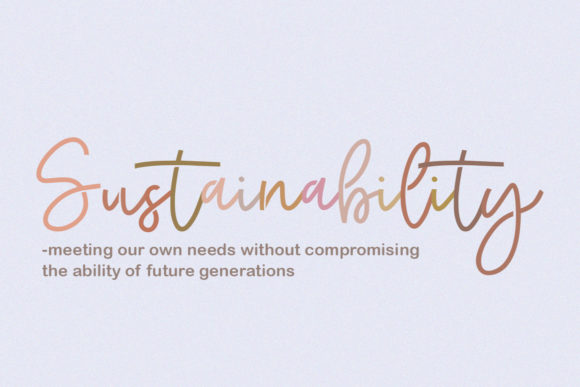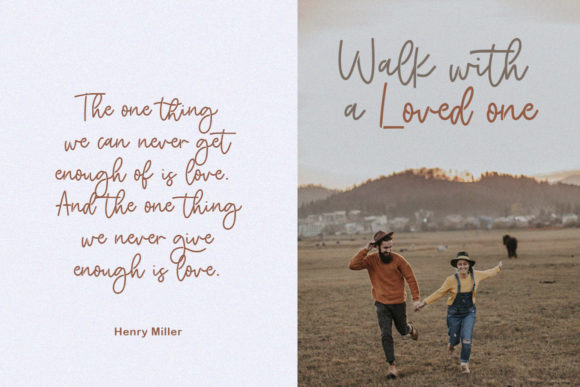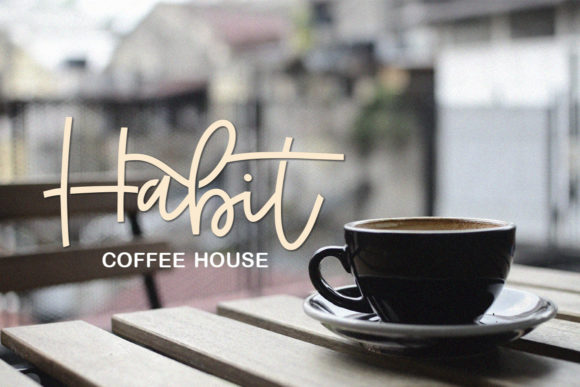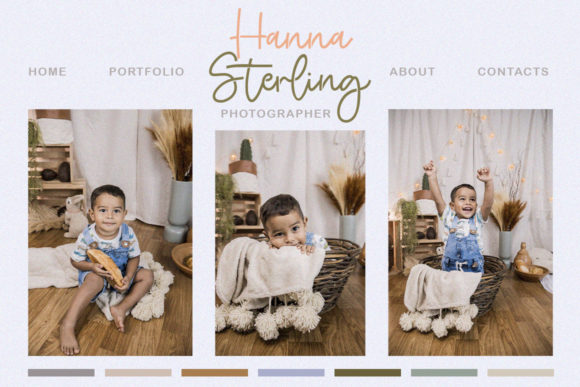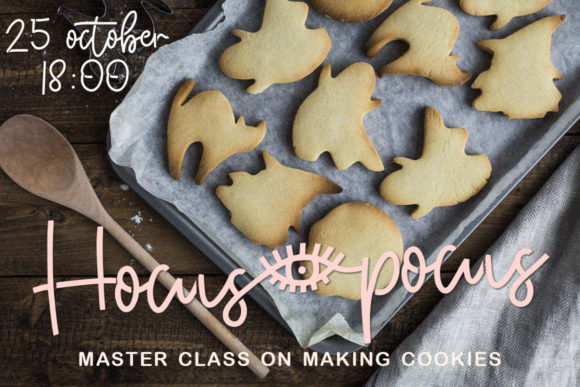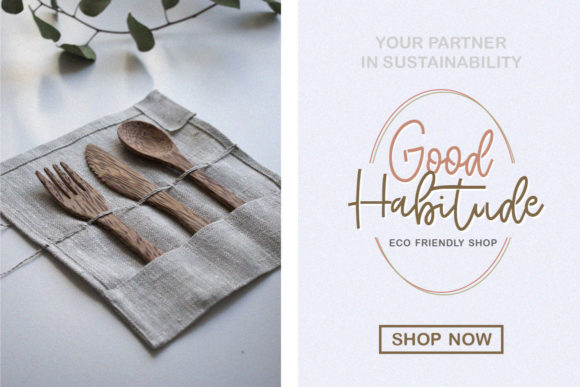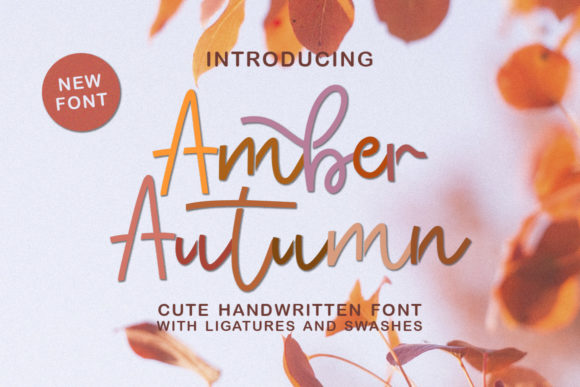
Introducing Amber Autumn Font: A Sweet and Friendly Handwritten Delight
Are you on the hunt for a font that exudes warmth, friendliness, and a touch of whimsy? Look no further than Amber Autumn, a beautiful handwritten font that’s perfect for a wide range of design projects. In this article, we’ll dive into the features and benefits of Amber Autumn, and explore how it can elevate your designs and craft projects.
A Sweet and Friendly Handwritten Font
Amber Autumn is a sweet and friendly handwritten font that’s sure to capture the hearts of designers and crafters alike. Its natural and unique style makes it incredibly versatile, suitable for a large pool of designs, from rustic and vintage-inspired projects to modern and playful ones. The font’s gentle, cursive lines and subtle imperfections evoke a sense of handmade charm, perfect for adding a personal touch to your creations.
One of the standout features of Amber Autumn is its PUA (Private Use Area) encoding. This means that you can access all of the font’s glyphs and swashes with ease, giving you a wide range of creative possibilities. With PUA encoding, you can effortlessly add flourishes, ligatures, and other special characters to your text, making it truly unique and eye-catching.
So, what can you create with Amber Autumn? The possibilities are endless! Here are just a few ideas to get you started:
- Stationery and Invitations: Use Amber Autumn to create beautiful, one-of-a-kind stationery, invitations, and greeting cards that are sure to impress.
- Branding and Packaging: Add a touch of warmth and personality to your brand with Amber Autumn, perfect for packaging, labels, and marketing materials.
- Digital Art and Graphics: Incorporate Amber Autumn into your digital art and graphics, such as blog headers, social media graphics, and more.
- Crafting and Scrapbooking: Use Amber Autumn to add a personal touch to your scrapbooking and crafting projects, such as journal pages, photo albums, and more.
Why Choose Amber Autumn?
With so many fonts on the market, why choose Amber Autumn? Here are just a few reasons:
- Unique and Versatile: Amber Autumn’s natural and unique style makes it incredibly versatile, suitable for a wide range of designs and projects.
- Easy to Use: With PUA encoding, accessing the font’s glyphs and swashes is a breeze, making it easy to get creative and experiment with different looks.
- High-Quality Design: Amber Autumn is designed with high-quality craftsmanship in mind, ensuring that your designs look professional and polished.
Get Creative with Amber Autumn
Ready to get creative with Amber Autumn? Whether you’re a designer, crafter, or DIY enthusiast, this sweet and friendly handwritten font is sure to inspire. With its natural and unique style, PUA encoding, and endless design possibilities, Amber Autumn is the perfect addition to your font collection.